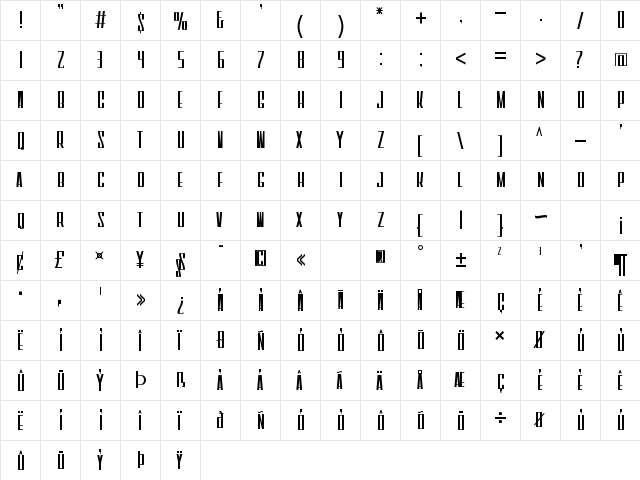
Nomz Regular
Design Context for Nomz Typeface
Nomz offers clean, dependable letterforms without strong stylistic allegiance, making it a practical choice for designers who need flexibility.